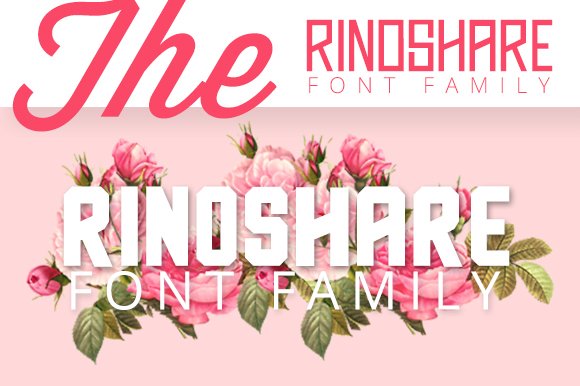
Rinoshare Font Family
Glad to introduce you to a new typeface but it is very impressive, it is a font family with 7 different styles. Introducing Rinoshare Font Family! Rinoshare designed by Thefancy Deal. Rinoshare is typography with a firm structure and very comfortable for the reader, also has a simple character. very suitable for official media such as banners, magazines, newspapers, books, and others.